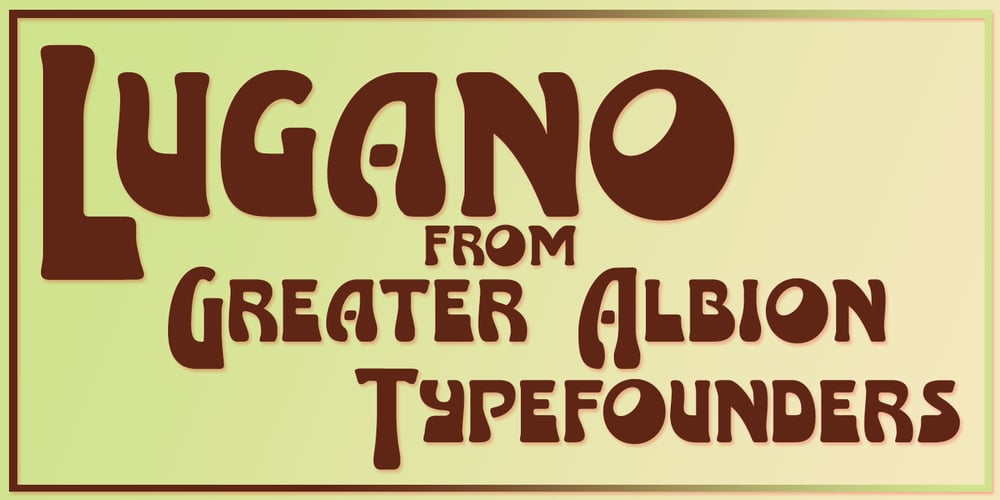
Lugano Font Family was designed by Paul James Lloyd and published by Greater Albion Typefounders. Lugano contains 4 styles and family package options. Lugano has it’s inspiration in 1920s advertising material and is ideal for lively banner lettering, posters and cover design. Four typefaces are offered – Lugano comes in regular, alternate, striped and alternate striped forms. Try it out and inject a little fun into your work today!